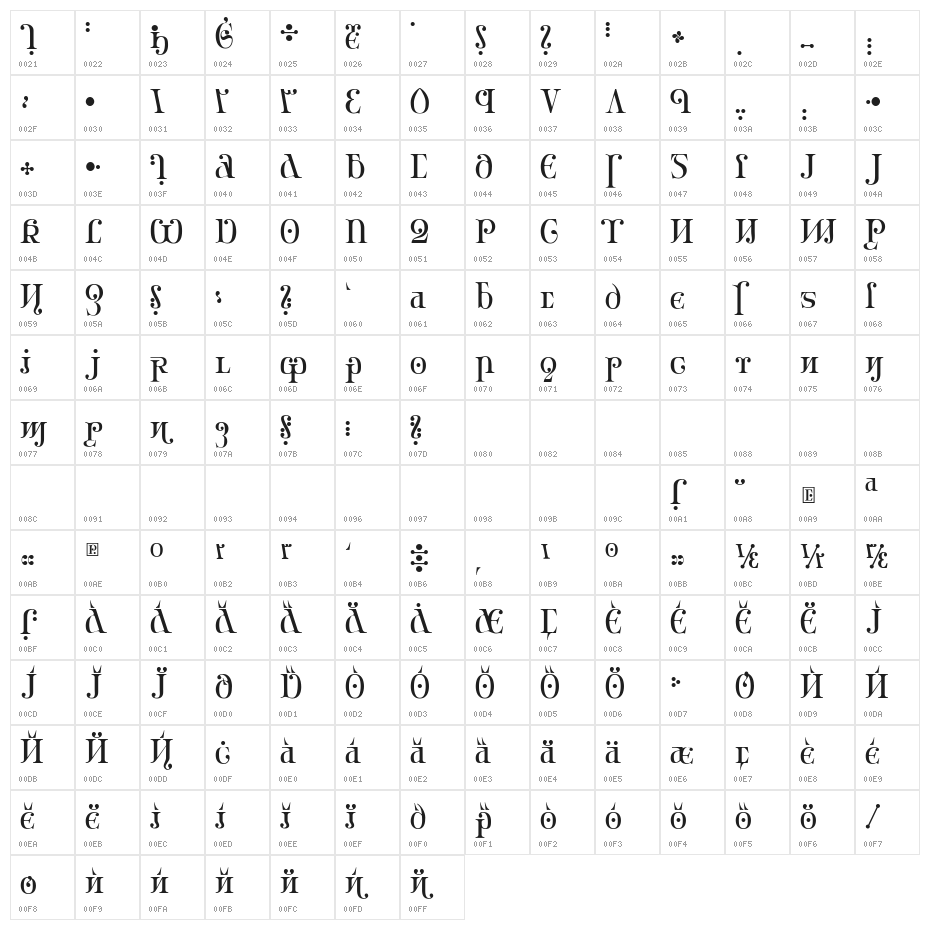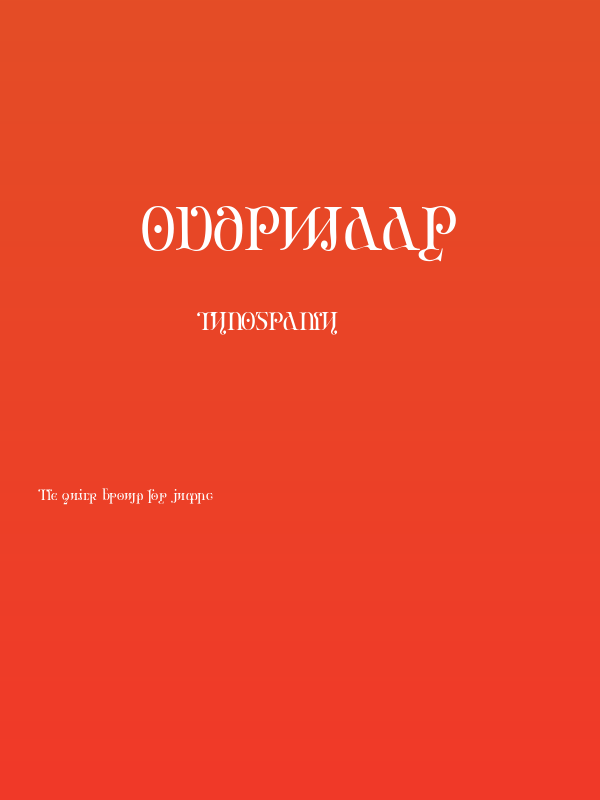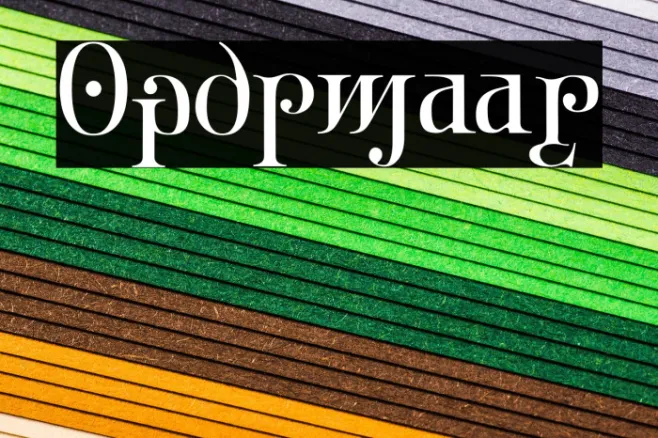
Ondrwaax Font
Ondrwaax Description
This font features a unique and artistic style, characterized by its decorative and ornamental elements. The letters have a whimsical and playful appearance, with intricate curves and flourishes that give it a distinctive look. The uppercase and lowercase letters maintain a consistent design, with some characters featuring extended strokes and loops. The numbers and special characters are equally stylized, adding to the overall cohesive aesthetic. This font is ideal for projects that require a touch of elegance and creativity, making it suitable for artistic and decorative purposes.
| Use Case | Logos, Posters, Invitations |
| Proposed Projects | Ideal for invitations, posters, branding, and artistic projects that require a decorative touch. |